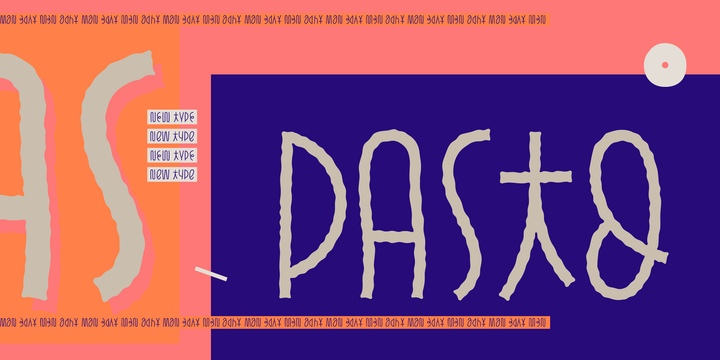
Pasto Font
Pasto Font is perfect for Italian pasta restaurant branding, authentic trattoria signage, traditional Italian cuisine marketing, family recipe presentations, Italian food packaging design, Mediterranean culinary communications, rustic Italian dining promotions, and hearty comfort food campaigns.
What makes Pasto Font exciting is its Italian comfort that embodies the heartwarming tradition and culinary passion of authentic Italian pasta culture with family heritage and Mediterranean authenticity. The font features robust letterforms with pasta-inspired proportions and culinary character that evoke grandmother's kitchen, hand-rolled pasta, and the loving tradition of Italian family cooking and Mediterranean comfort food. Its distinctive culinary styling and traditional appeal communicate warmth, authenticity, and Italian heritage, making every message feel seasoned with tradition and touched by the comforting beauty of Italian pasta culture and family culinary wisdom.
The Pasto Font family includes regular weight with uppercase and lowercase letters, numerals, punctuation marks, and special characters. Premium versions often feature culinary alternates and Italian elements that enhance the traditional, comfort aesthetic perfect for Italian food and family restaurant applications.
The traditional character of Pasto Font makes it particularly valuable for Italian family restaurants, pasta manufacturers, and authentic Italian food producers. Its excellent readability ensures culinary messaging and Italian communications remain clear while maintaining the distinctive pasta aesthetic that appeals to customers seeking authentic Italian comfort food experiences and traditional family cooking.
Italian culinary marketers appreciate how Pasto Font effortlessly conveys Italian authenticity and comfort food tradition. The font's robust proportions and culinary details create appetizing brand materials that establish emotional connections with audiences who value Italian cuisine, family traditions, and the heartwarming comfort of authentic pasta culture and Mediterranean family cooking.
The versatile comfort of this typeface extends to Italian cooking education, culinary tourism, and Mediterranean food brands where pasta authenticity enhances culinary credibility and Italian appeal. Pasto Font Free Download provides creative professionals with an essential tool for developing memorable, tradition-driven designs that resonate with audiences who embrace Italian culinary heritage, pasta traditions, and the comforting warmth of authentic Italian family cooking in their dining and culinary experiences.